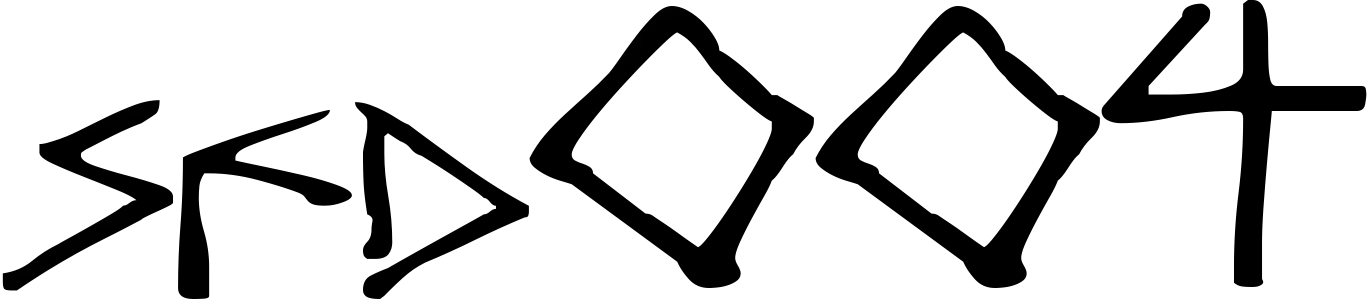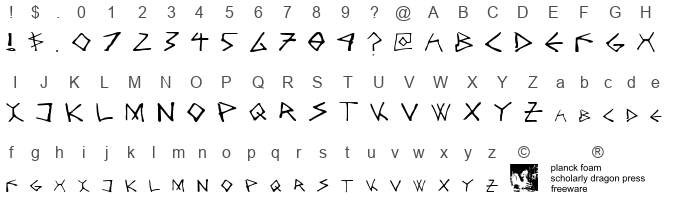
sfd004
Copyright (c) Planck Foam Scholarly Dragon Press Freeware, 2001. All rights reserved.. PlanckFoamScholarlyDragonPressFreeware: sfd004: 2001. sfd004. 2001; 1.0, initial release. sfd004 is a trademark of the Planck Foam Scholarly Dragon Press Freeware.. David E. Howerton. another font based on scribbles from poetry notebooks from the early 70's.